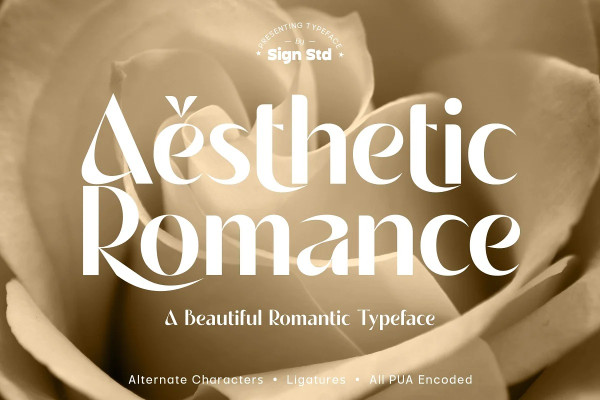
Aesthetic Romance Font
Aesthetic Romance Font is medium thick which means it can be versatile for captioning as well as Title Display. Equipped with beautiful Ligature characters and alternative characters. This font would be perfect for any design of titles, headers, branding, labels, magazines, posters and more.